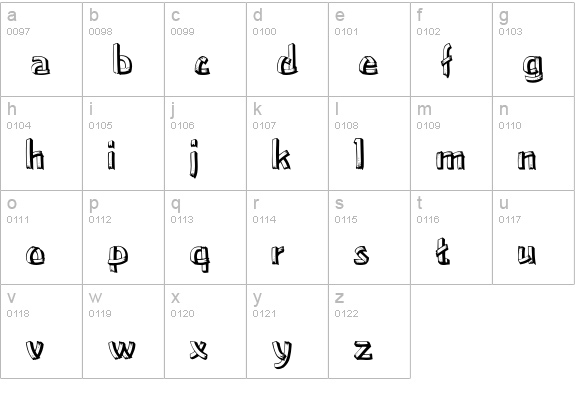
Lower-EastSide font is a modern and stylish typeface that exudes urban charm and edgy sophistication. Inspired by the vibrant culture and creativity of the Lower East Side neighborhood in New York City, this font is perfect for adding a touch of urban flair to your designs. With its clean lines and bold strokes, Lower-EastSide font is versatile and eye-catching, making it suitable for a wide range of design projects. Whether you're working on branding, advertising, or editorial design, this font will add a contemporary and dynamic touch to your work. What's even better is that Lower-EastSide font is free to download at FontsMarket.com. This means you can easily access this stylish font and incorporate it into your projects without any hassle. Don't miss out on the opportunity to enhance your designs with the trendy and modern aesthetic of Lower-EastSide font. Download it now and let your creativity shine!